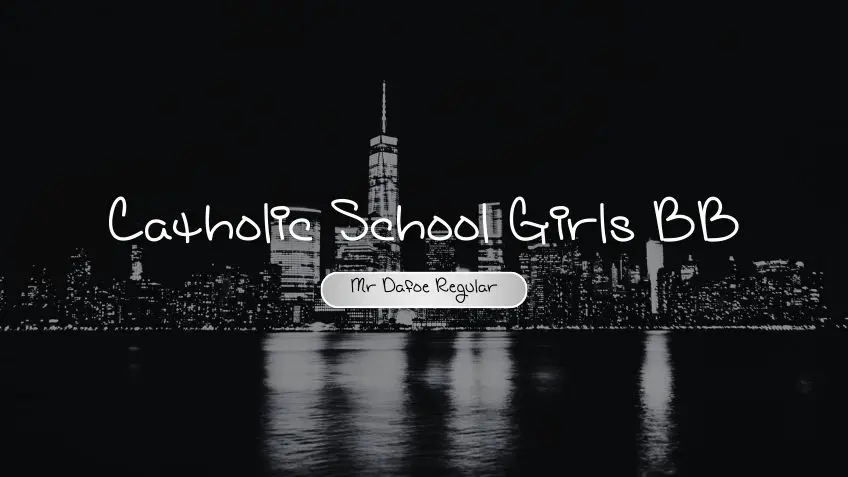
The font Catholic School Girls BB Regular, designed by Blambot Comic Fonts, falls under the Handwritten category & Catholic School Girls BB font family. Its smooth, flowing letterforms make it a versatile choice for projects that require both elegance and readability. Catholic School Girls BB is particularly well-suited for Creative and Fun Branding, Event Posters, Children's Media, Comic Books and Graphic Novels, Branding for casual businesses and Event flyers. With its balance of simplicity and decorative appeal, this font brings a polished touch to both personal and professional designs.